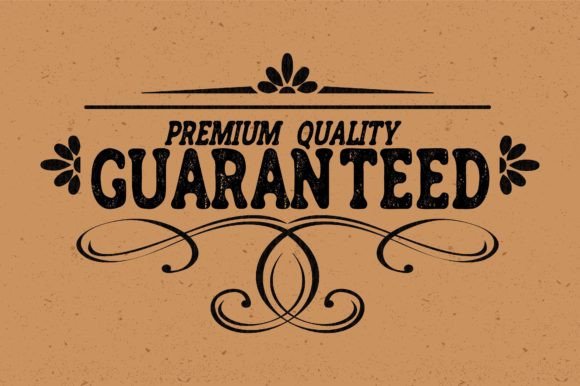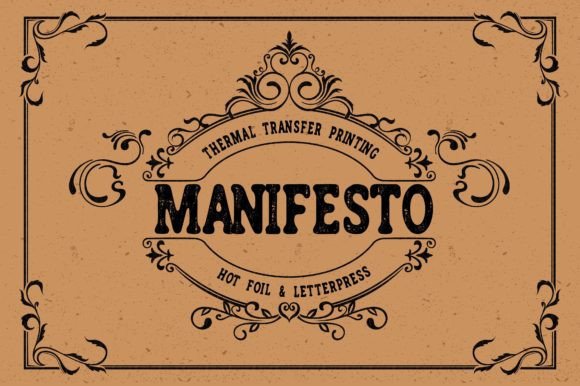
Slaberg Font
SLABERG FONT SPECIMEN
Slaberg is a vintage slab serif font family designed to imitate color press printing technology, and transfer those amazing luxury printing effects to the digital world. Combining the grunge texture with the font body produces an amazingly pleasing look that attracts the eyes. It would perfectly fit any vintage, retro elegant graphics that require drawing attention. The font has distressed bleed contours that emphasize the letterpress printing technology and render it more realistic. Use it confidently in your project, and you will notice how much it has the possibility to elevate your creation’s quality!